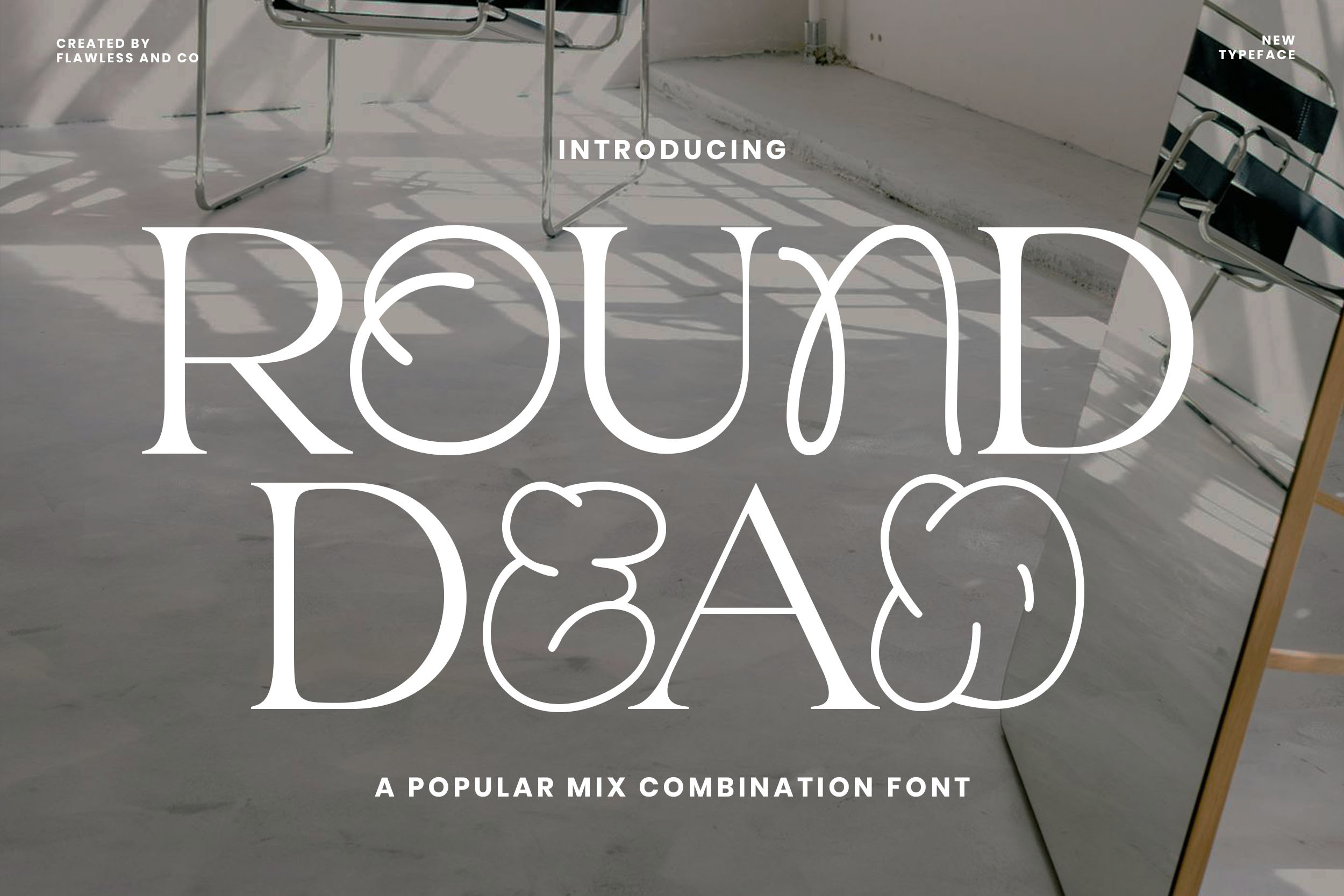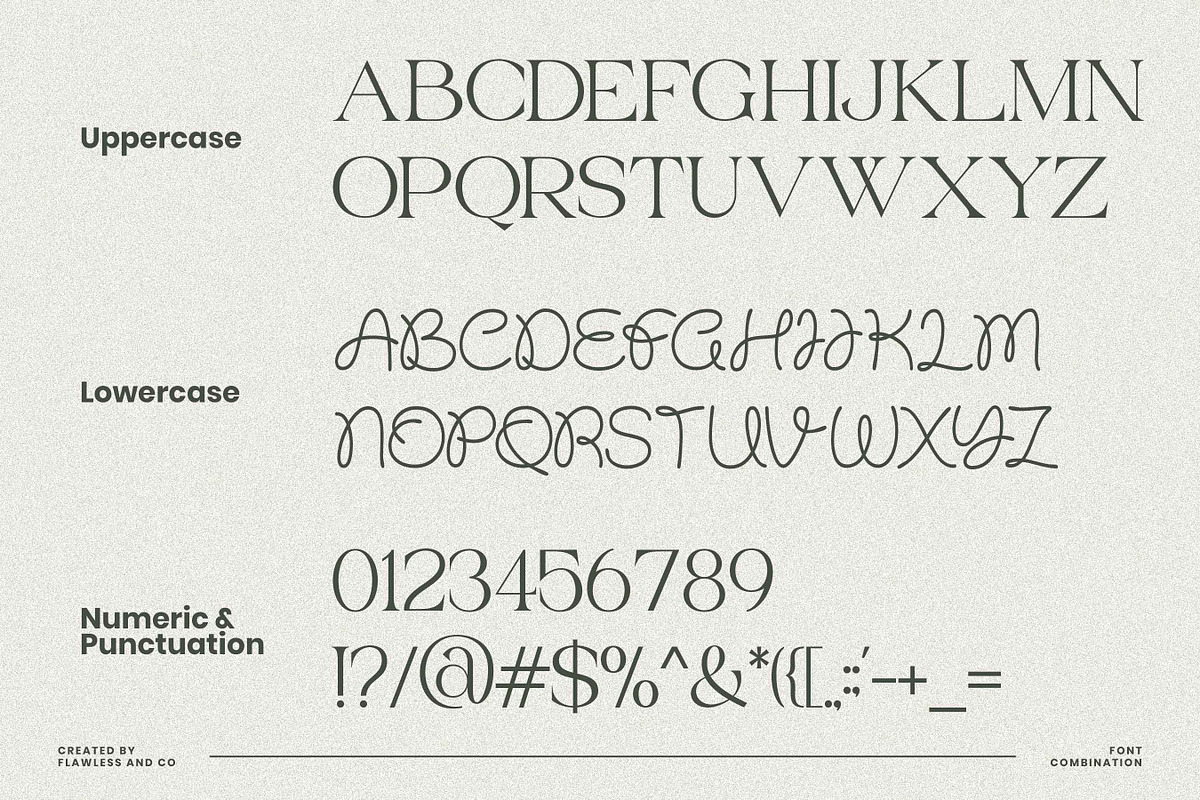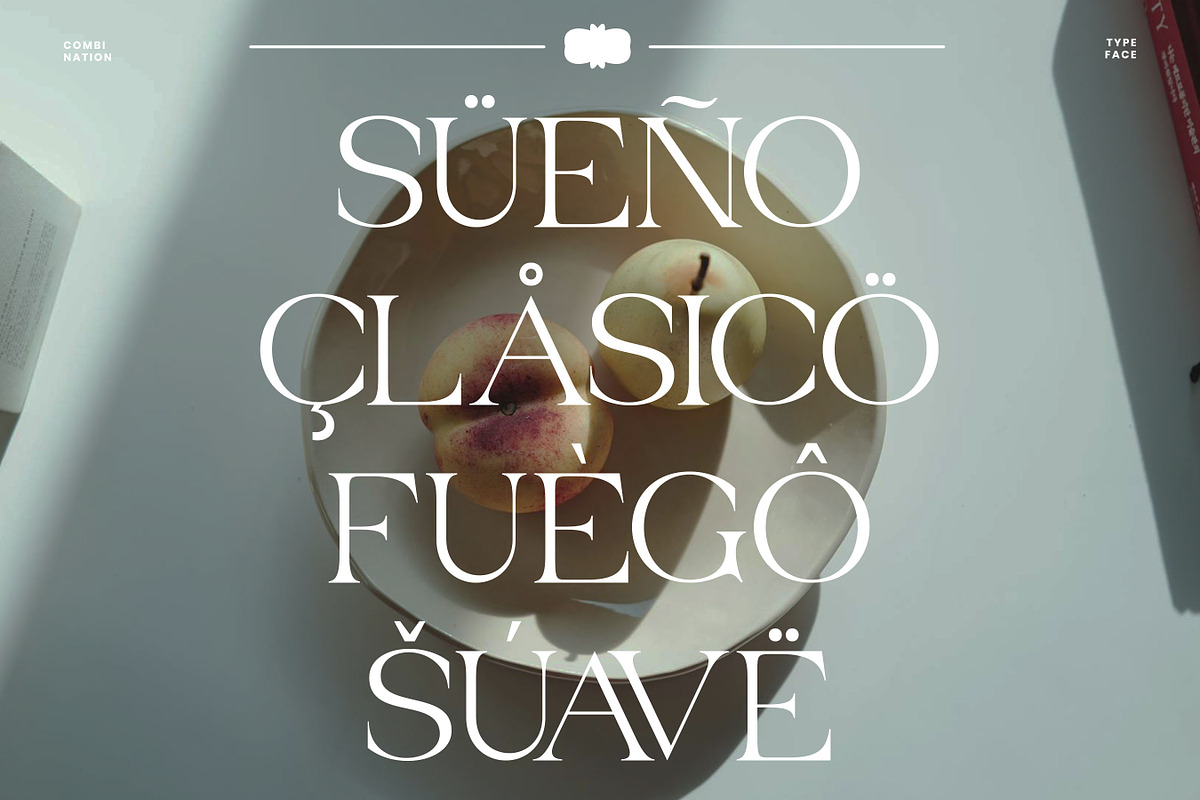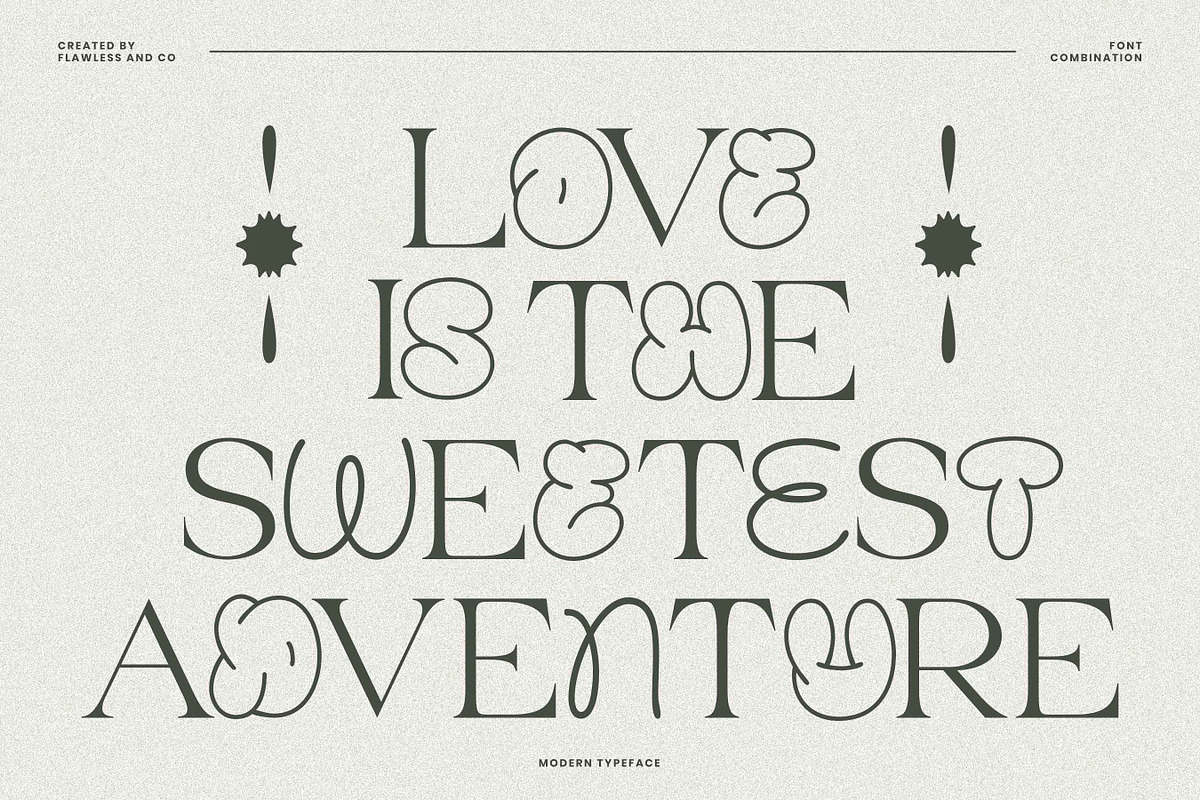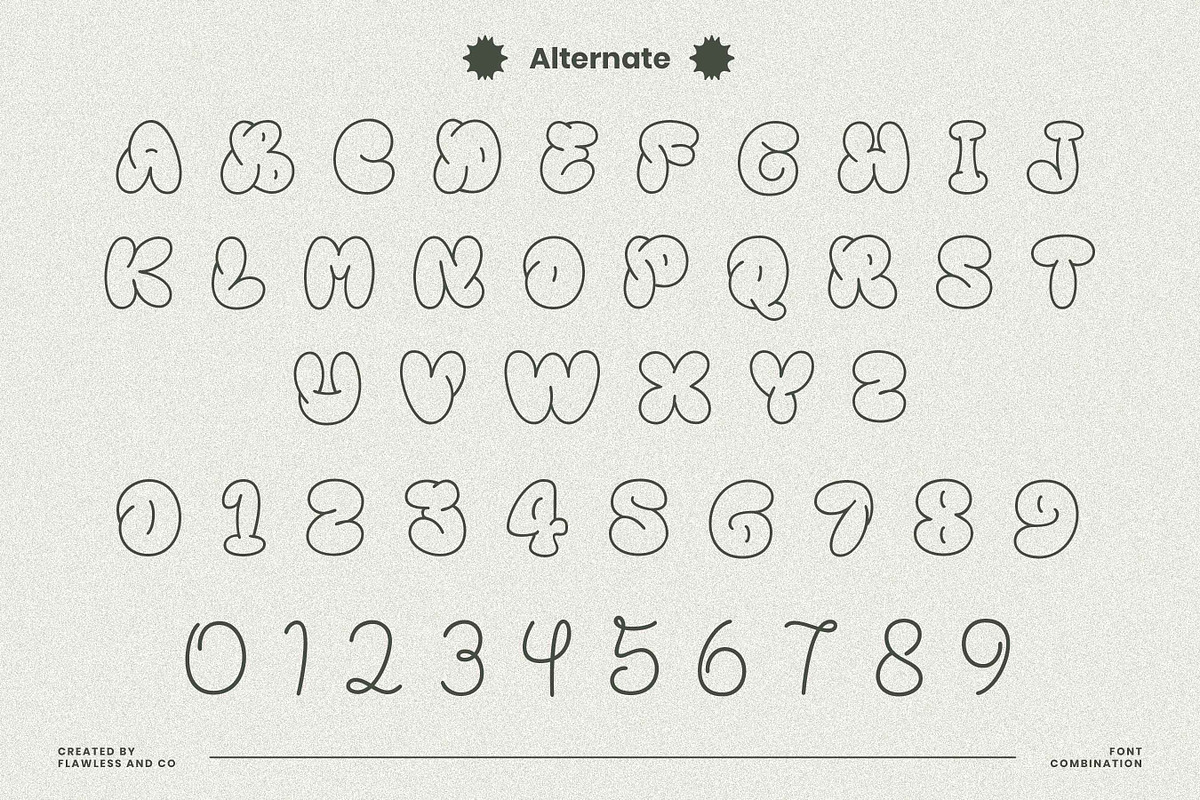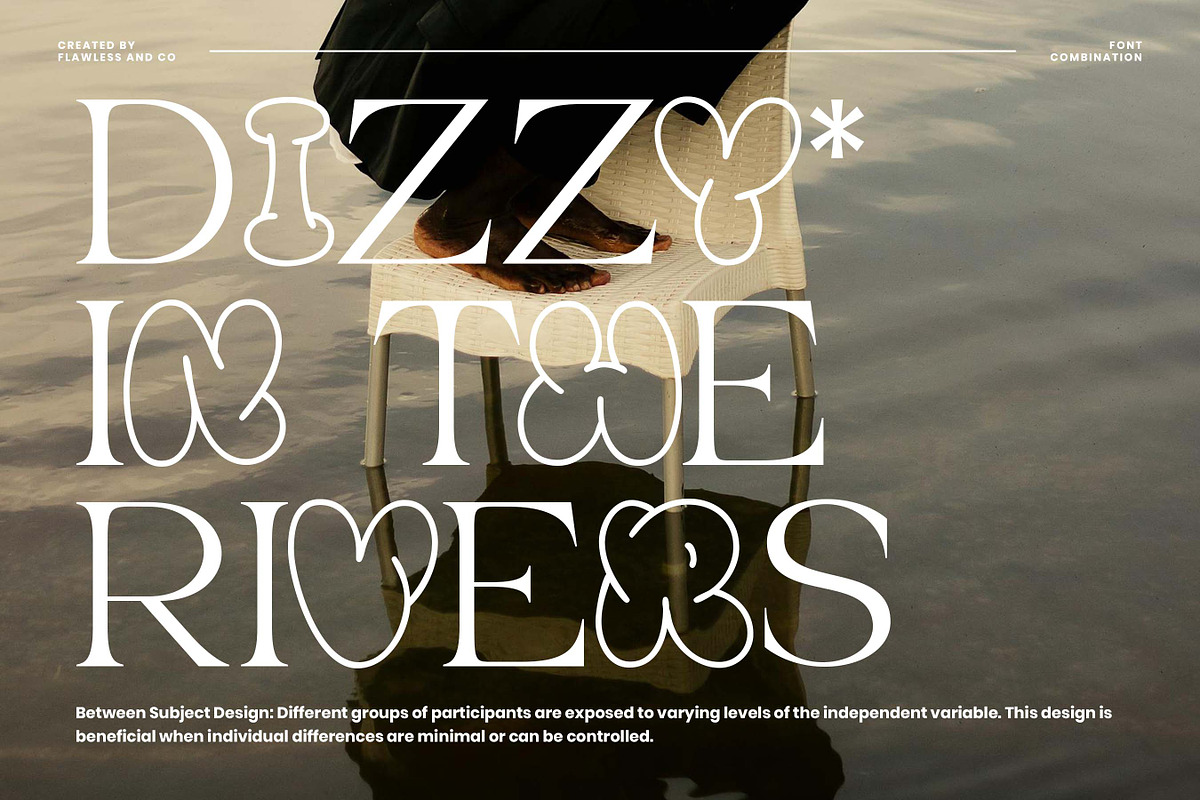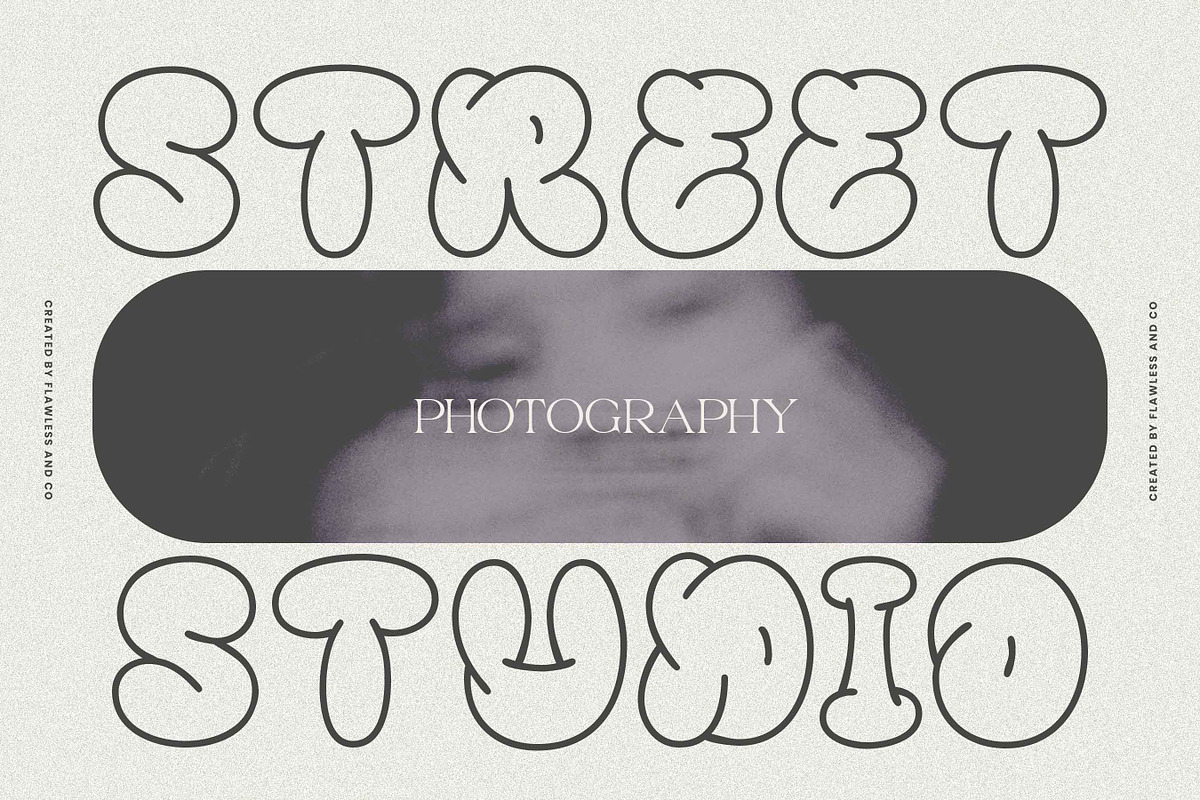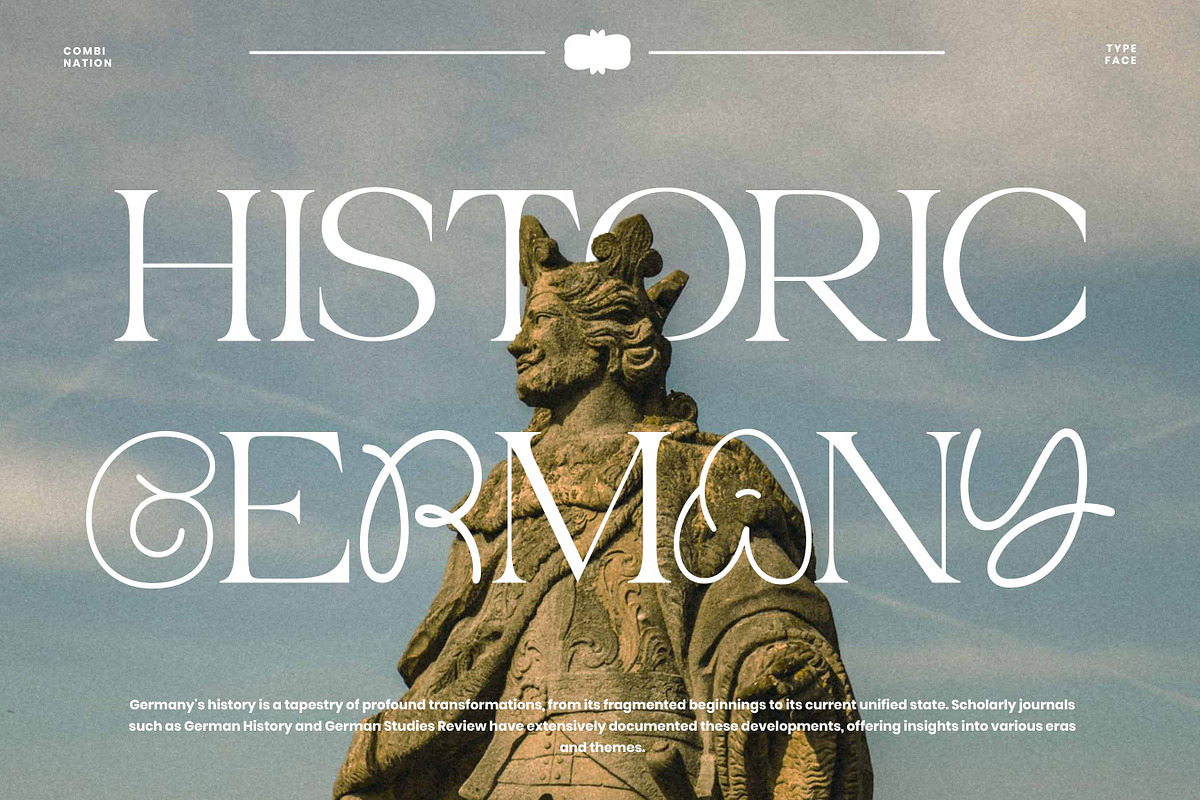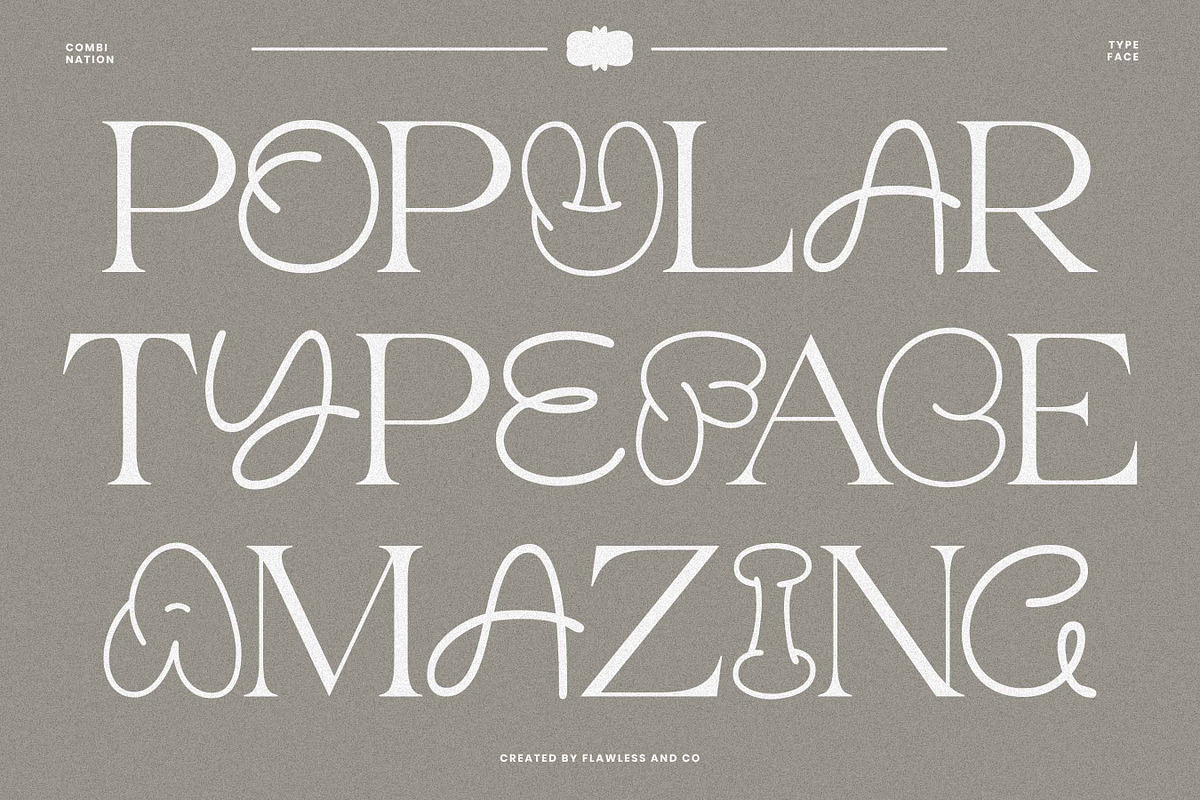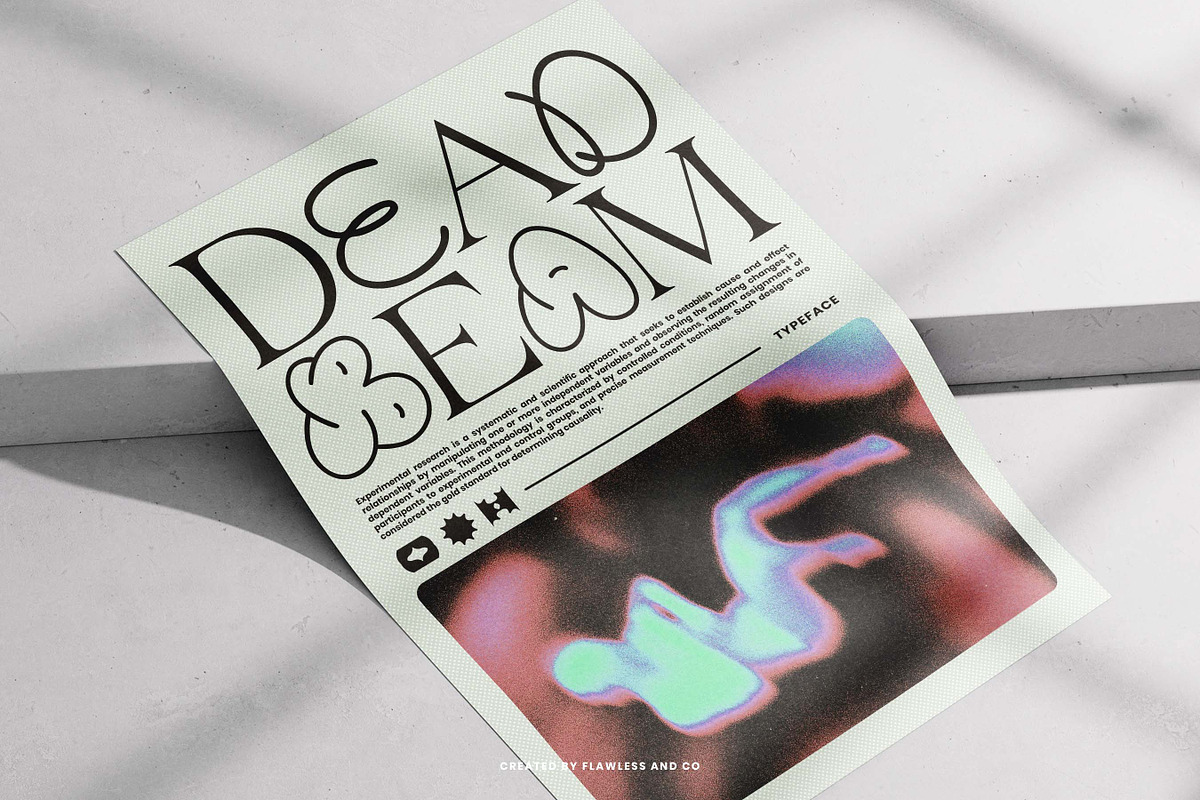
Round Dead - Mix Combination Font
Round Dead – Retro Groovy Serif Font
Round Dead is a retro groovy serif font that channels playful charm and vintage attitude in every curve. Inspired by bold 70s aesthetics with a modern pop culture twist, Round Dead features soft rounded edges, chunky letterforms, and a smooth rhythm that brings personality to any layout—making it perfect for attention-grabbing designs like album covers, party posters, merch graphics, branding for fun-forward businesses, and social media content. Each letter is crafted to be both approachable and striking, delivering a friendly, upbeat tone with retro soul.
Use Round Dead to create bold, lively designs that radiate joy and retro-cool flair.
Who Should Use Round Dead? Round Dead is made for creatives, designers, and brands who want to bring a fun, youthful, and memorable tone to their visual identity. Whether you're working on branding for lifestyle products, music events, kids' merchandise, or content creation, this font instantly adds character and nostalgia. It’s ideal for those who aren’t afraid to stand out with bold typography and a playful vintage vibe.
A Must-Have Font for Brand and Logo Creators and Designers Round Dead is more than just a stylish typeface — it’s a personality-driven design tool. Crafted for bold thinkers and expressive brands, it helps logos, packaging, and headlines pop with charm and energy. With its smooth curves and retro-inspired balance, Round Dead makes sure your brand visuals feel both iconic and approachable.
Why Choose Round Dead for Brand and Logo Projects? Because every brand needs a font that makes people feel something. Round Dead mixes retro nostalgia with modern design flair, helping your projects stand out with warmth, fun, and confidence. It offers high legibility, strong presence, and an undeniably unique voice — perfect for brands that want to leave a lasting impression with style and soul.